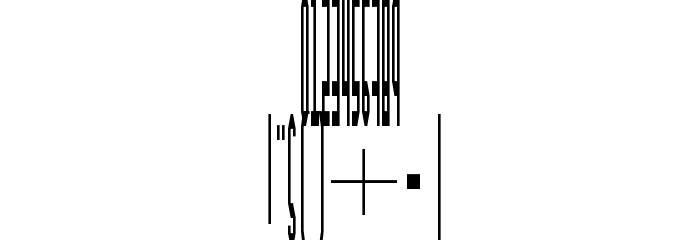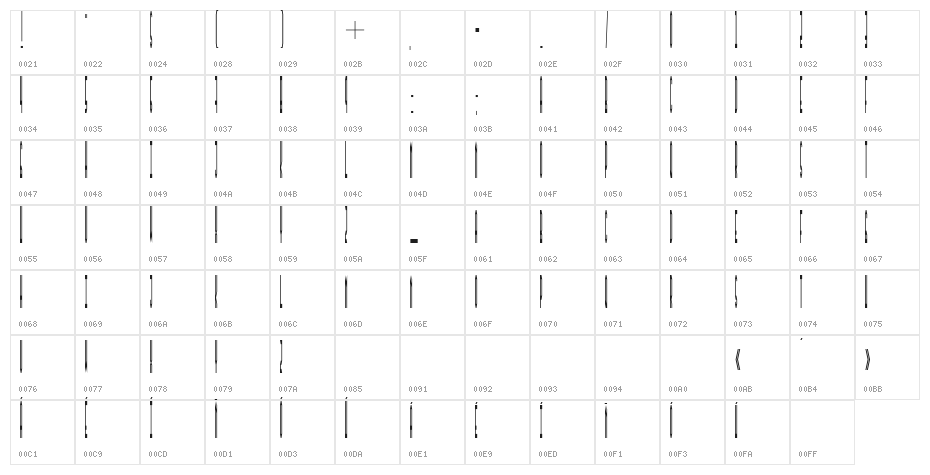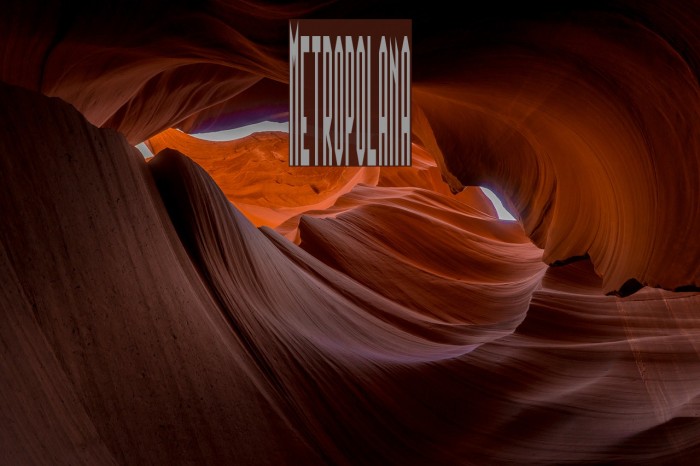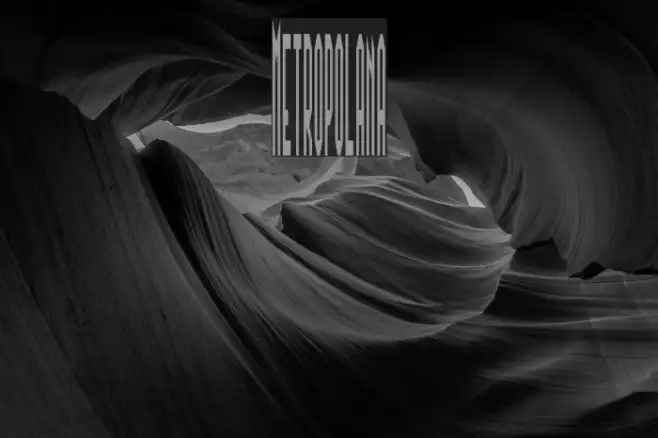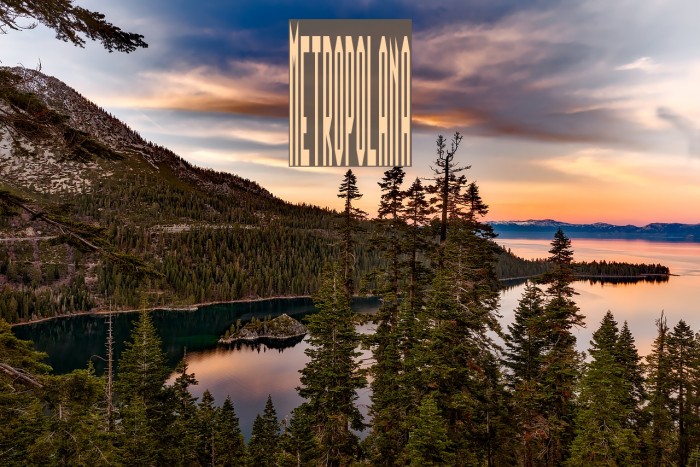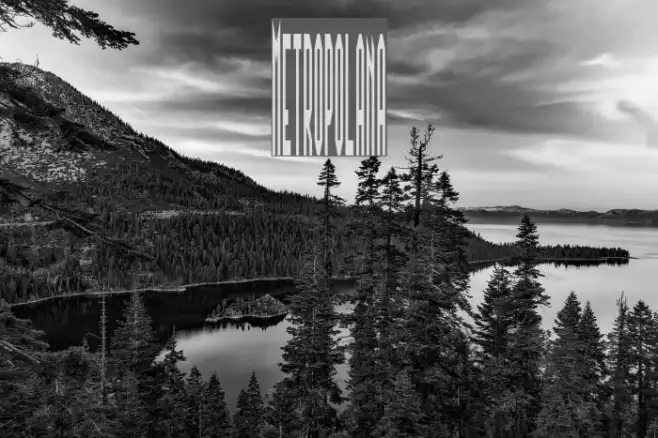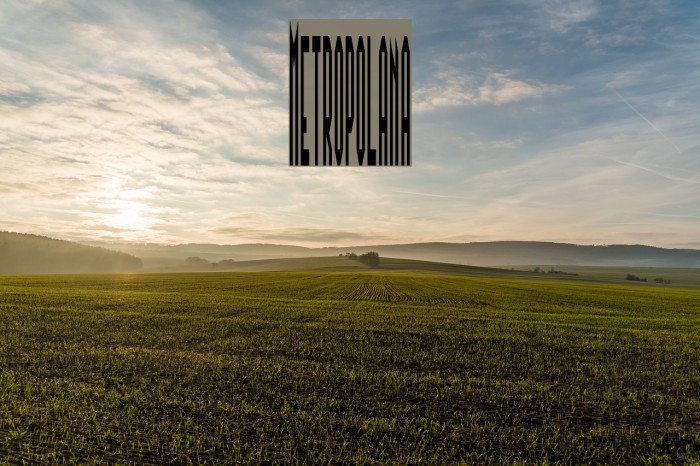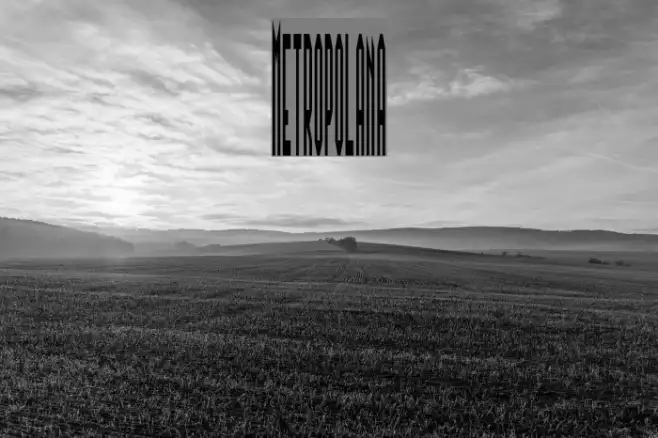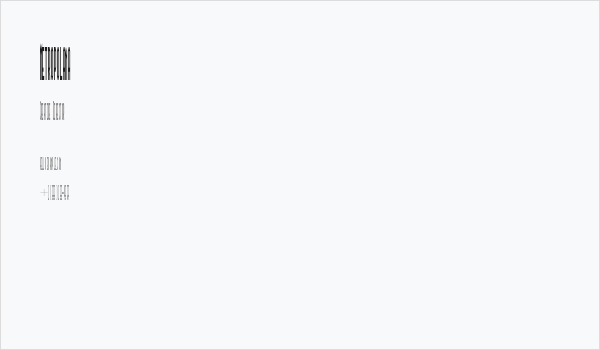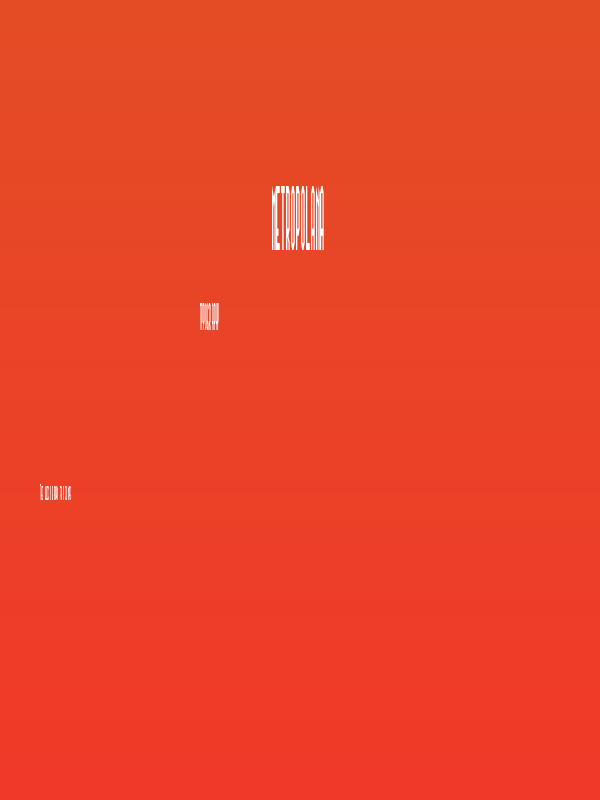
Metropolana Font
Metropolana Description
This font features an ultra-condensed and elongated style, giving it a distinct and modern appearance. The characters are tall and narrow, with minimal spacing between them, creating a sleek and streamlined look. The strokes are consistent in thickness, providing a uniform and cohesive feel across all characters. The design is highly geometric, with sharp angles and clean lines, making it suitable for contemporary and avant-garde projects. Its unique structure makes it stand out, ideal for making bold statements in design.
RamΓ³n Delgado
Proposed ProjectsIdeal for modern branding, avant-garde posters, fashion magazines, and innovative product packaging.